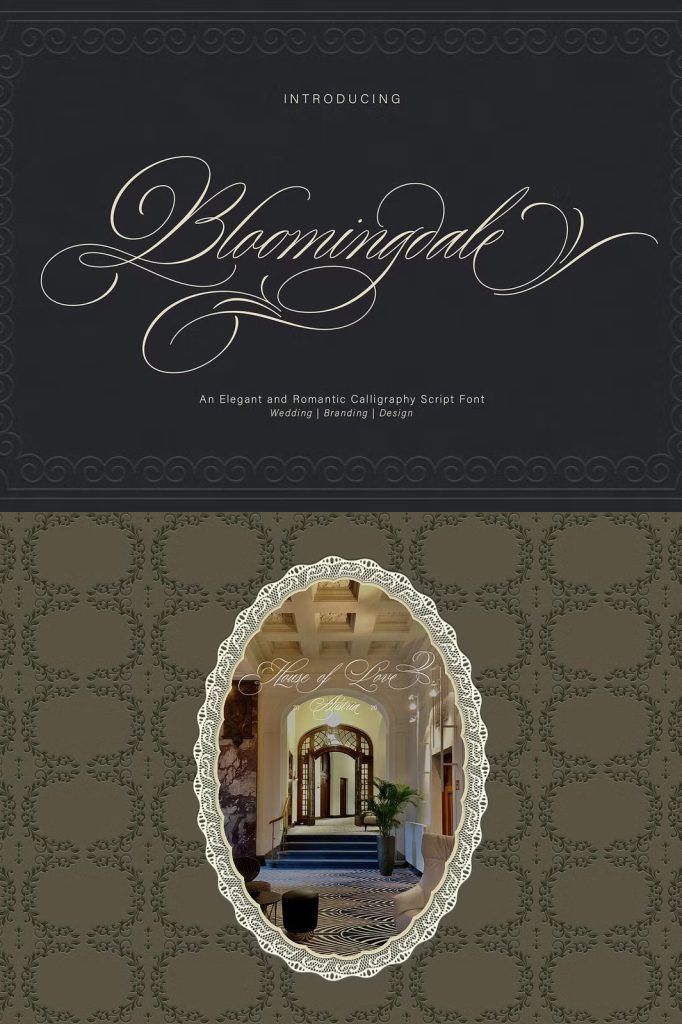
Bloomingdale Handwritten Script Font
Bloomingdale is a beautiful handwritten script font that brings warmth, elegance, and a personal touch to every design. With its flowing letterforms and expressive handwritten character, Bloomingdale creates a natural visual rhythm that helps your typography feel more personal and memorable. This versatile script typeface works beautifully across branding, wedding invitations, greeting cards, posters, logos, stationery, fashion projects, quotes, blog headers, and many other creative applications.
Designed to capture the charm of authentic handwriting, Bloomingdale adds an elegant personality without making your designs feel overly formal. Its graceful strokes create a sophisticated appearance while maintaining the relaxed quality of hand lettering. Whether you want to build a romantic wedding identity, create an expressive logo, or add a stylish signature effect to promotional artwork, Bloomingdale gives your project a distinctive typographic voice.
A Beautiful Handwritten Style
Bloomingdale stands out through its handwritten script aesthetic. The flowing shapes and connected appearance create a sense of movement that naturally guides the viewer across each word. Instead of relying on rigid geometric forms, the font uses organic letterforms to produce a more human and artistic result.
This character makes Bloomingdale especially useful when you want your design to communicate elegance, creativity, warmth, or individuality. The handwritten appearance can transform simple words into attractive visual elements, making the font a strong choice for both personal and commercial design projects.
Perfect for Branding and Logo Design
Bloomingdale works especially well for branding projects that need a memorable and sophisticated identity. Use the font to create boutique logos, fashion labels, beauty brands, lifestyle businesses, creative studios, and handmade product identities. Its expressive script style can give a brand a more personal character while helping the logo stand apart from ordinary typography.
You can also combine Bloomingdale with a clean sans serif or elegant serif font to create contrast within a complete brand identity. Use the script for the main logo or signature element, then pair it with a simpler typeface for supporting information. This approach creates a balanced hierarchy and allows Bloomingdale to become the visual centerpiece of the design.
Elegant Wedding Invitations and Stationery
Wedding stationery provides another natural application for Bloomingdale. Its graceful handwritten appearance adds romance and sophistication to wedding invitations, save-the-date cards, RSVP cards, menus, thank-you cards, and ceremony programs. Use the font for names, headings, dates, or short decorative phrases to create an elegant presentation.
Bloomingdale also works beautifully on envelopes, wedding signage, place cards, and personalized stationery. The handwritten character can make each design feel more intimate and carefully crafted, helping couples create a consistent visual style throughout their wedding materials.
Creative Posters, Quotes, and Social Media Designs
Bloomingdale can add an expressive personality to posters and promotional graphics. Use it for short headlines, inspirational quotes, campaign messages, event titles, and decorative typography. Its flowing style helps simple phrases become strong visual statements.
For social media content, Bloomingdale can give quote graphics, announcements, promotional posts, and lifestyle templates a stylish handwritten finish. Use generous spacing and a clean background to let the script remain easy to appreciate. You can also combine it with subtle graphic elements to create polished content for Instagram posts, Pinterest graphics, online advertisements, and digital campaigns.
Fashion and Editorial Applications
Fashion designers, photographers, bloggers, and creative directors can use Bloomingdale to introduce a refined handwritten element into editorial layouts. Apply it to magazine-style titles, fashion campaign graphics, lookbooks, product labels, and promotional materials. The font can create a sophisticated contrast when paired with minimalist typography and strong photography.
Bloomingdale also suits fashion-related logos and product packaging. Its elegant strokes can help communicate craftsmanship, individuality, and a boutique-inspired aesthetic. Whether you are designing a clothing label, accessory brand, beauty collection, or lifestyle product, the font can provide a distinctive finishing touch.
Greeting Cards, Quotes, and Personal Projects
The warm character of Bloomingdale makes it an excellent choice for greeting cards and personalized designs. Use it for birthday cards, thank-you cards, anniversary artwork, inspirational quotes, invitations, announcements, and other special occasions. Its handwritten appearance helps communicate a sense of personal expression that standard fonts often cannot achieve.
Choose Bloomingdale when you want your typography to feel expressive, elegant, and distinctly human. With its versatile handwritten character, this script font can elevate everyday words into beautiful design elements and help your creative projects leave a lasting impression.